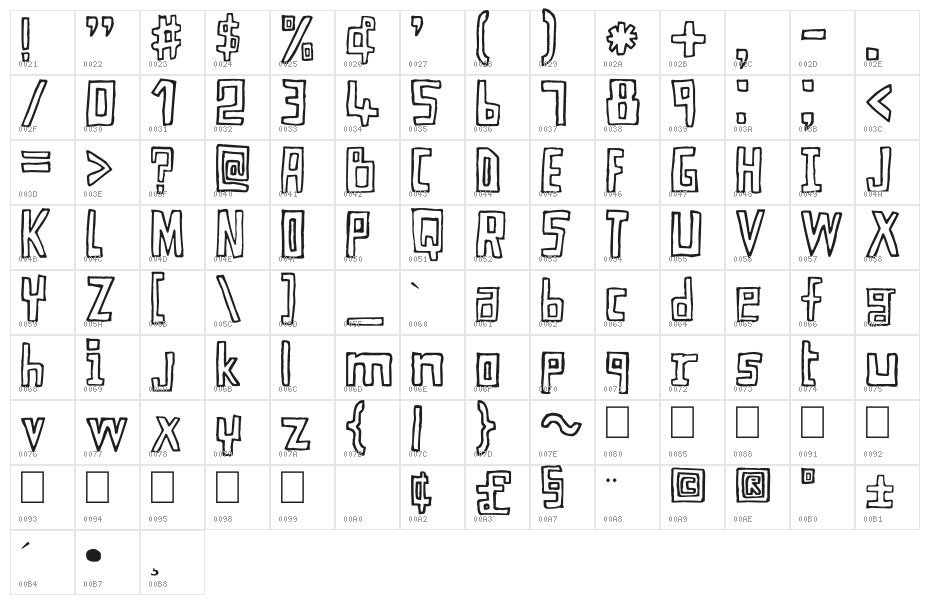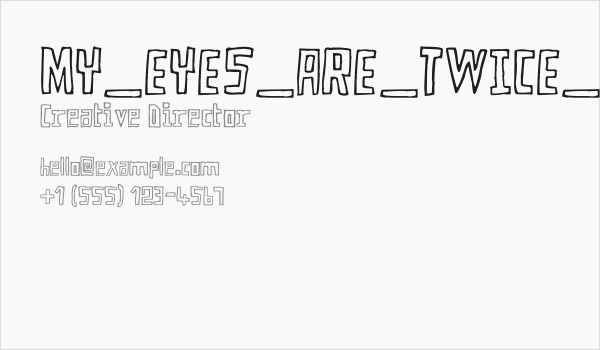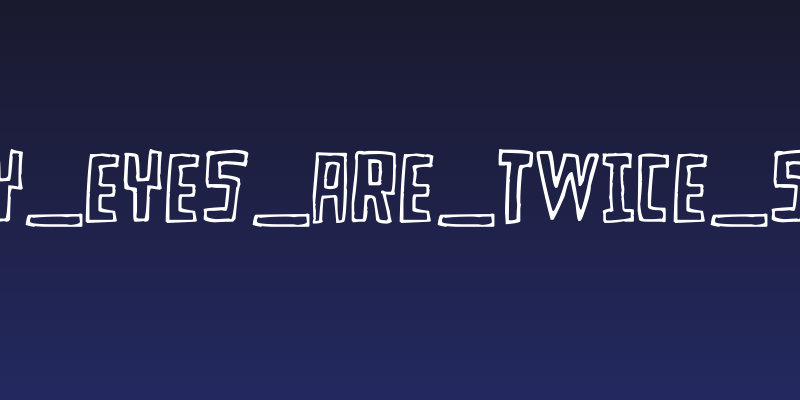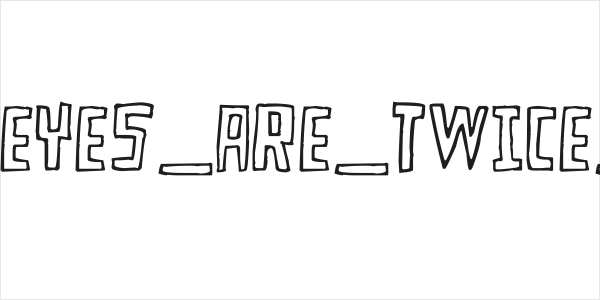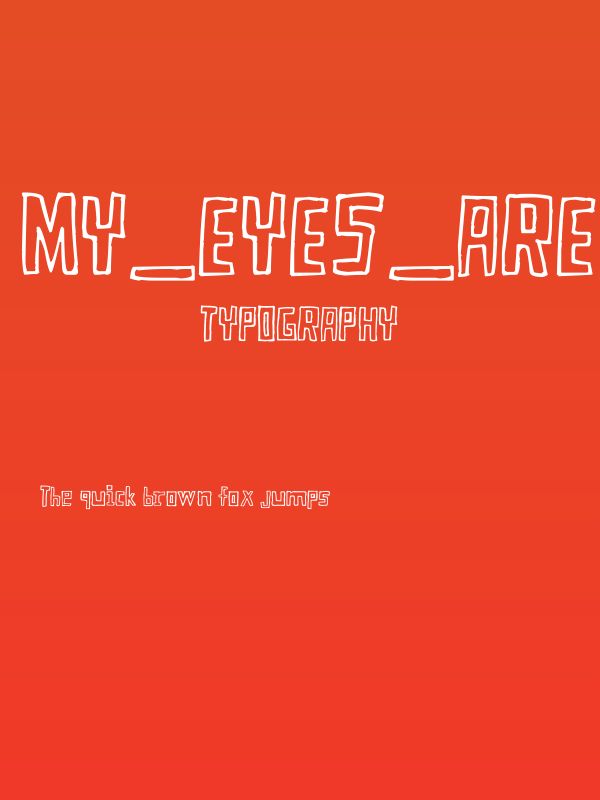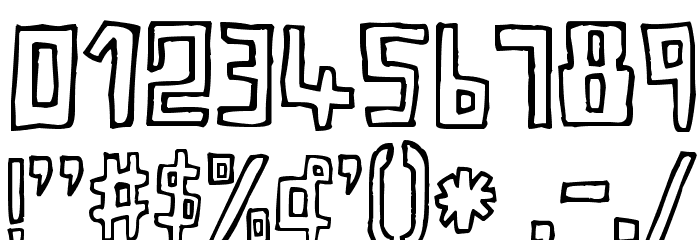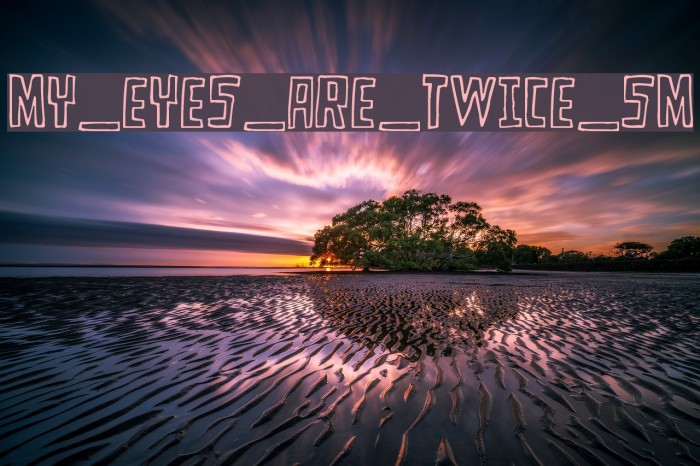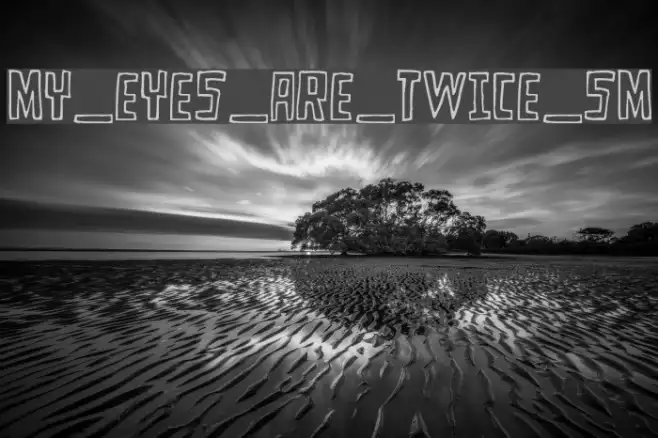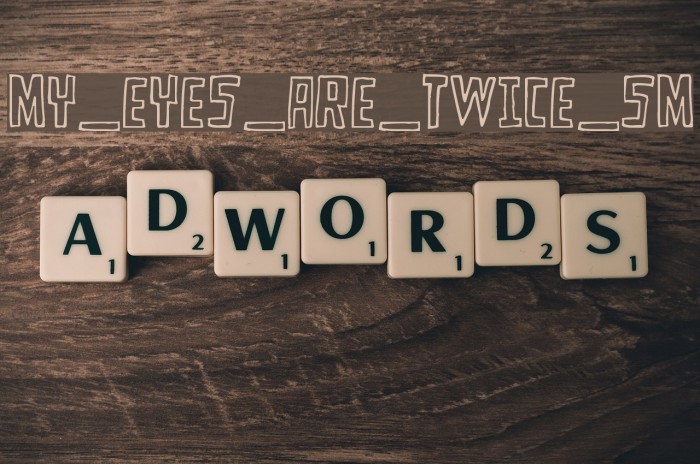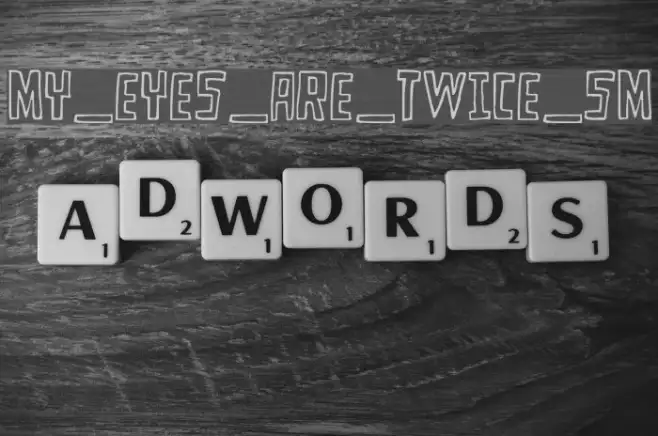
MY_EYES_ARE_TWICE_SM Font
MY_EYES_ARE_TWICE_SM Description
This font features a playful and hand-drawn style, characterized by its uneven lines and quirky, irregular shapes. Each character appears as though it has been sketched with a marker, giving it a casual and informal appearance. The letters are bold and slightly condensed, with a unique charm that makes them stand out. The numbers and special characters follow the same whimsical design, maintaining consistency throughout the set. This font's distinct personality makes it ideal for creative projects that require a fun and engaging visual element.
| Proposed Projects | Ideal for children's books, comic strips, playful branding, and creative posters. |